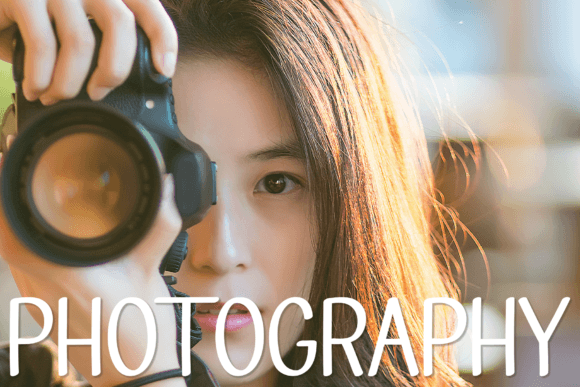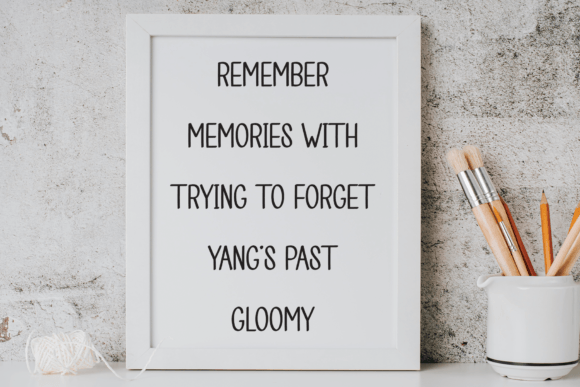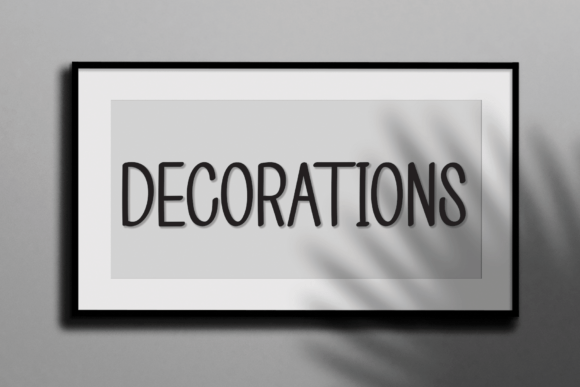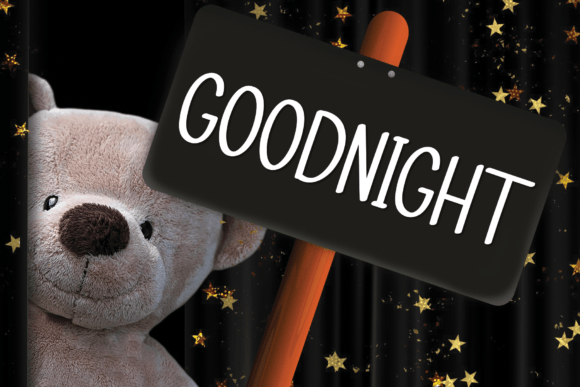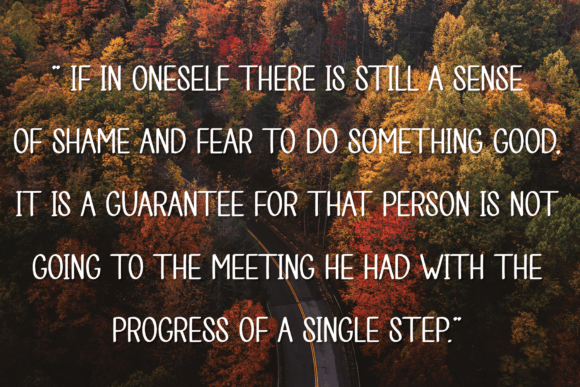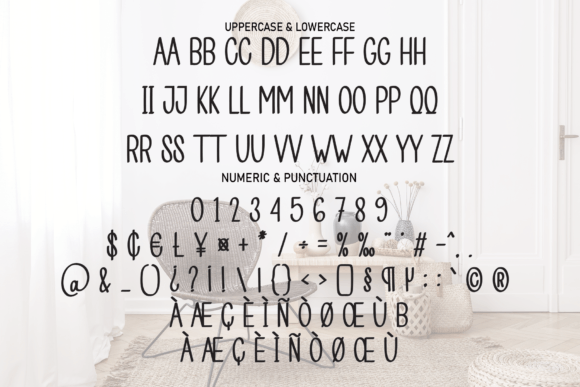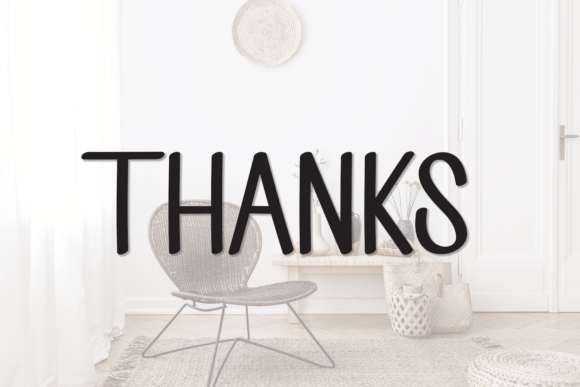
About Room Handmade
the latest style letters are perfect for wall displays, wedding invitations, social media post logos,
advertisements, product packaging, product designs, labels, photography, watermarks, invitations, stationery,
and any project that requires taste handwriting.